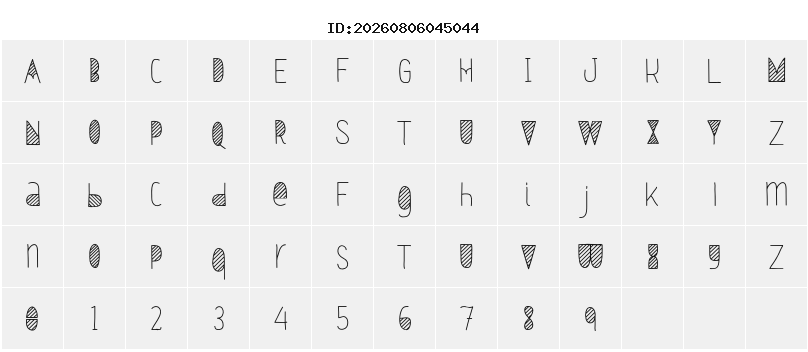
Oxymorons Bold Preview
• Font Name: Oxymorons Bold
• Font ID: PauloR: Oxymorons Bold: 2014
• Full Font Name: Oxymorons Bold
• Version: Version 1.000 2014 initial release
• PostScript Name: OxymoronsBold
• Character Count: 176
• Designer: Paulo R
• Manufacturer: Paulo R
About Oxymorons Bold.otf
Oxymorons Bold.otf is a modern, elegant sans-serif font designed for ultimate readability and visual harmony. Perfect for branding, headlines, web design, and print materials.